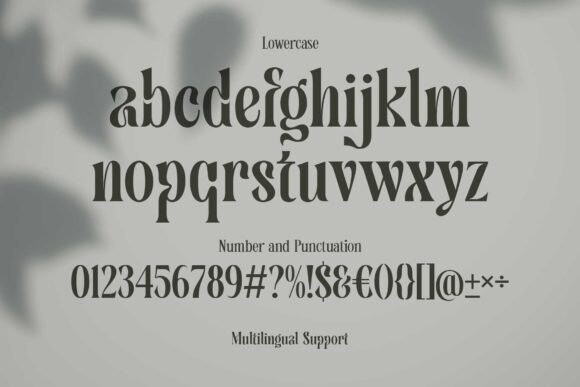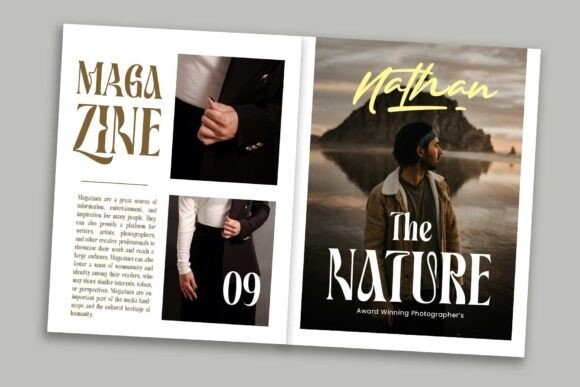
Kalora Font
Designer: Arterfak Project
Kalora Font is a luxurious serif font that captivates with its regal charm and refined aesthetics. Crafted for grandeur, its stately serifs and intricate details exude sophistication. Elevate your designs with the timeless elegance of Kalora, a font that commands attention and exudes opulent style.